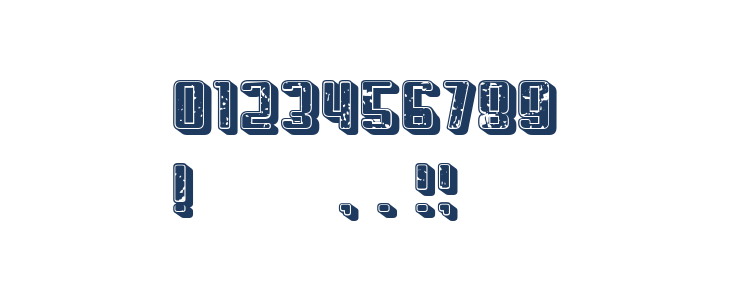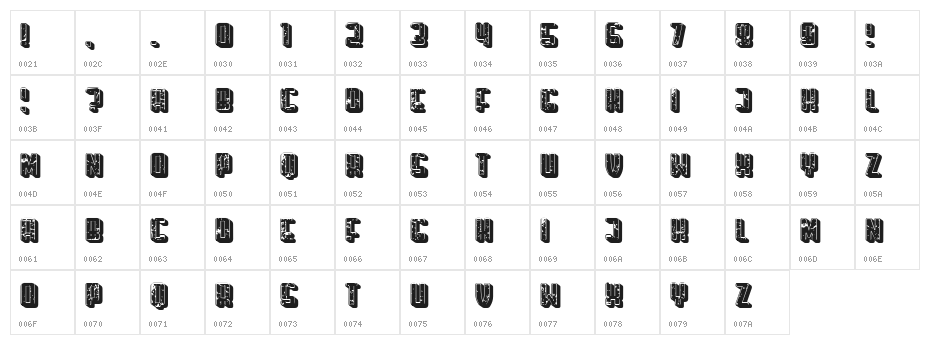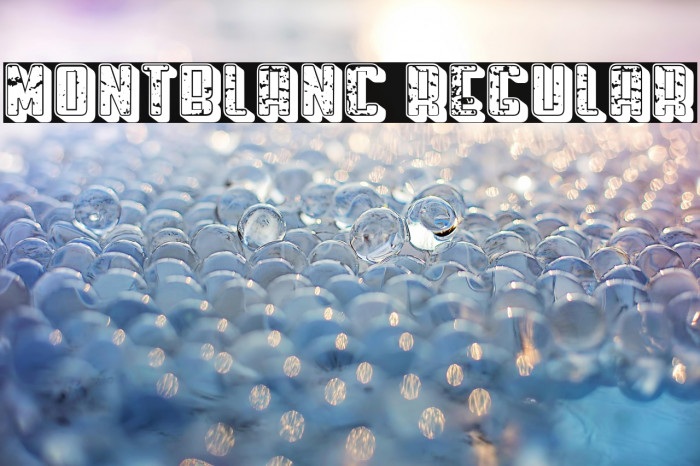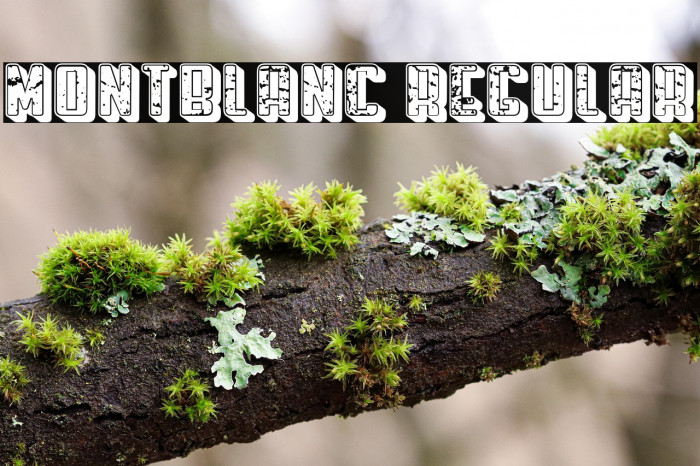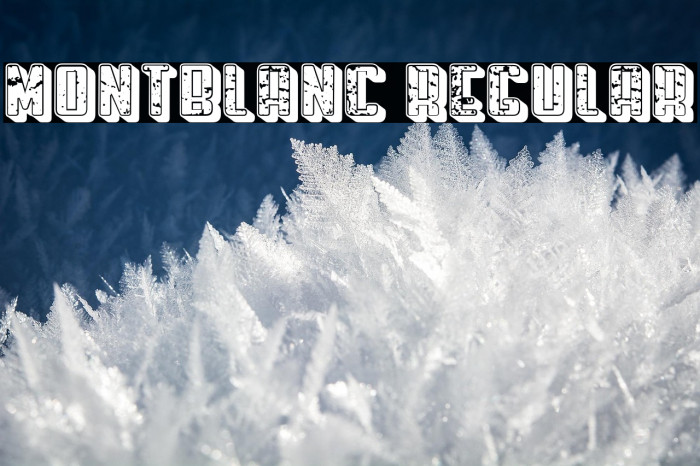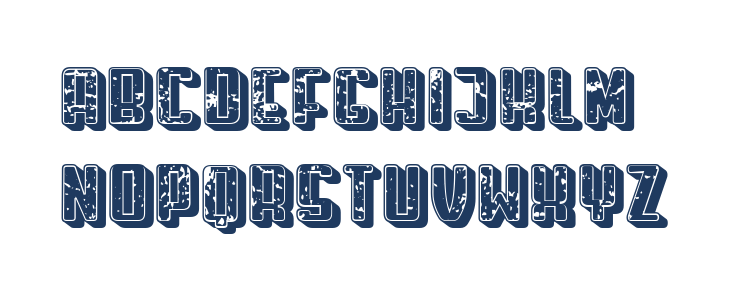
Montblanc Regular Font
Montblanc Regular Description
This font features a bold, distressed style with a strong, impactful presence. The characters are blocky and robust, with a textured appearance that gives them a worn, vintage look. The uppercase letters are consistent in height, and the numbers follow the same bold design. The font's unique texture adds a layer of depth and character, making it stand out in any design. The special characters maintain the same distressed style, ensuring a cohesive look across all elements. This font is perfect for projects that require a bold statement and a touch of rugged charm.
| Proposed Projects | Ideal for posters, album covers, branding, and any design needing a bold, vintage touch. |